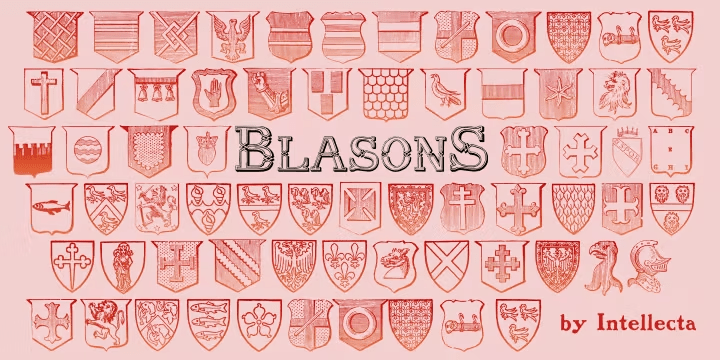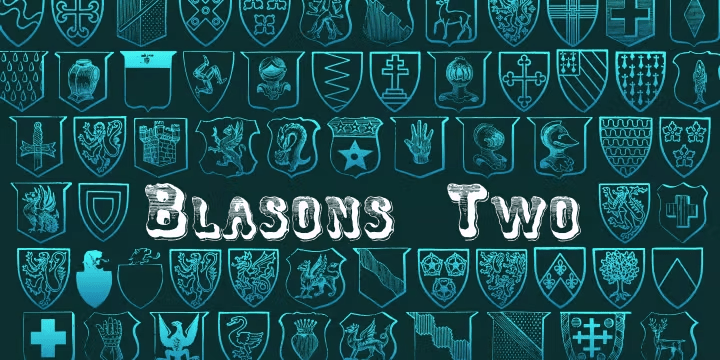
Blasons
Font Family by Intellecta Design
Blasons is a decorative display font family with a heraldic, medieval character and a distinctly ornamental feel. Its letterforms suggest coats of arms, royal insignia, and old-world pageantry, giving layouts a dramatic, historical tone that feels both stylized and memorable.
With 2 included styles—Blasons and Blasons Two—this family gives you a compact set of options for creating themed titles, monograms, emblems, invitations, packaging, posters, and other display work that calls for a noble or ceremonial look. It is especially well suited to projects inspired by heraldry, knights, kings, queens, and medieval visual traditions.
Designed by Intellecta Design, Blasons is a strong choice when you want typography that reads as decorative and symbolic rather than plain or contemporary. Use it where atmosphere matters and where a historical, crest-like impression can help define the design.